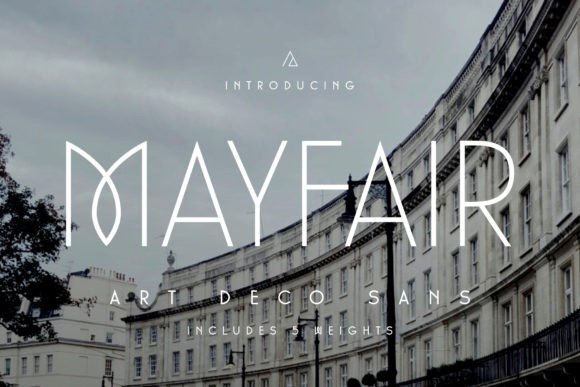
Introducing Mayfair Font, one of the best fonts for modern websites that will transport you back to the glamorous 1920s Art Deco era. Created by the talented team at Aurora Graphics, this sans-serif font seamlessly blends classic proportions with contemporary techniques, resulting in a visually captivating typeface that exudes elegance and sophistication.
Mayfair Font is the perfect choice for those seeking to add a touch of vintage charm to their designs. Whether you're designing posters, invitations, wedding cards, or even working in the film and TV industry, Mayfair Font will effortlessly elevate your creations to new heights.
Drawing inspiration from the typography of the Art Deco era, Mayfair Font beautifully combines light and heavy stroke widths with simple geometric forms, creating a visually striking appearance that captures the essence of the roaring 20s. Its stylish classical feel instantly transports viewers to a time of glitz, glamour, and unbridled creativity.
What sets Mayfair Font apart is its ability to evoke emotions and create a lasting impact. With its rich history and timeless design, Mayfair Font ignites a sense of nostalgia and sophistication, making it a powerful tool for designers looking to leave a lasting impression on their audience.
Not only does Mayfair Font boast captivating aesthetics, but it also offers exceptional functionality. Its versatility allows it to seamlessly complement various design styles and themes, making it a go-to choice for both contemporary and vintage-inspired projects. With Mayfair Font, you can effortlessly strike the perfect balance between modernity and classic elegance.
Incorporating Mayfair Font into your designs will not only captivate your viewers but also elevate your brand's image. Its eye-catching appeal and impeccable craftsmanship make it a must-have for those seeking to stand out in the competitive digital landscape.
Embrace the allure of the 1920s and let Mayfair Font transport your designs to a bygone era filled with sophistication and grandeur. Whether you're a seasoned designer or a creative enthusiast, Mayfair Font is the perfect companion to unleash your creativity and leave a lasting impression on your audience.